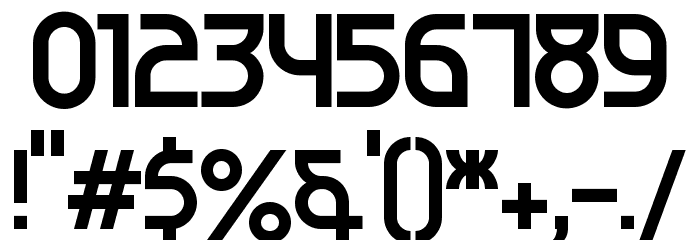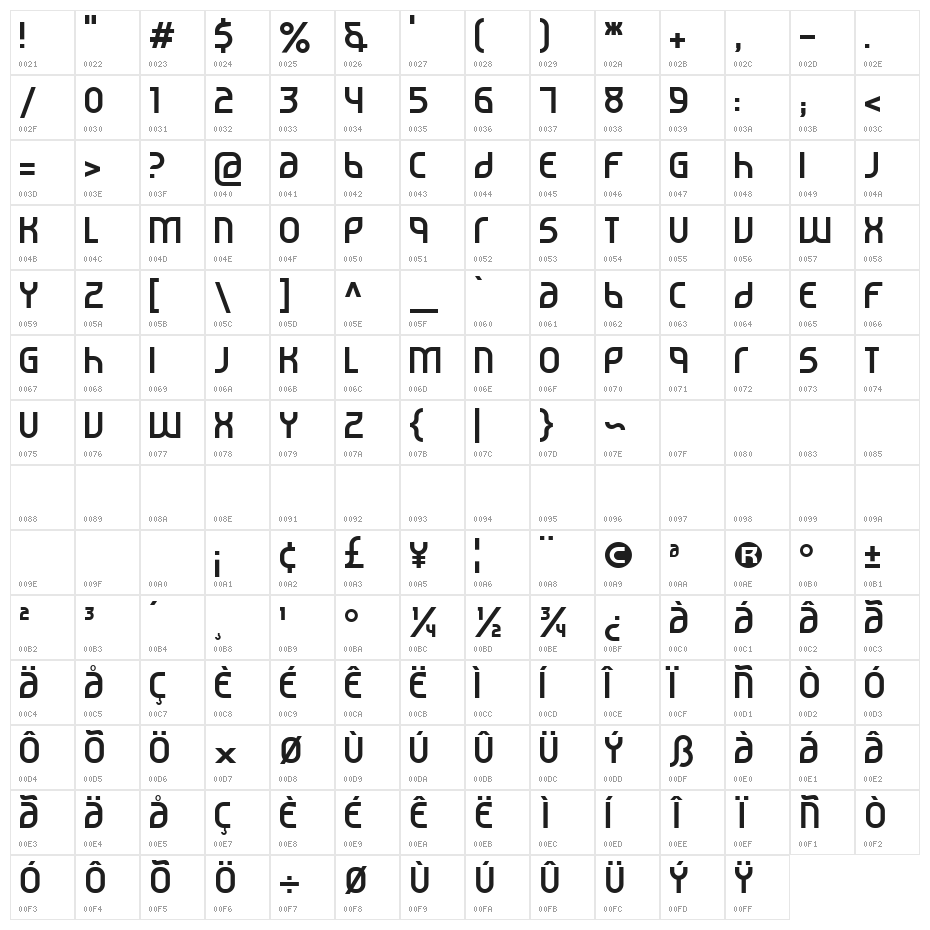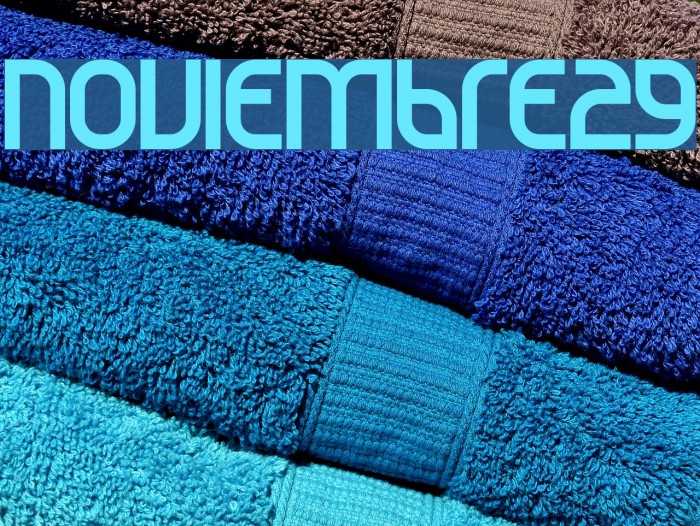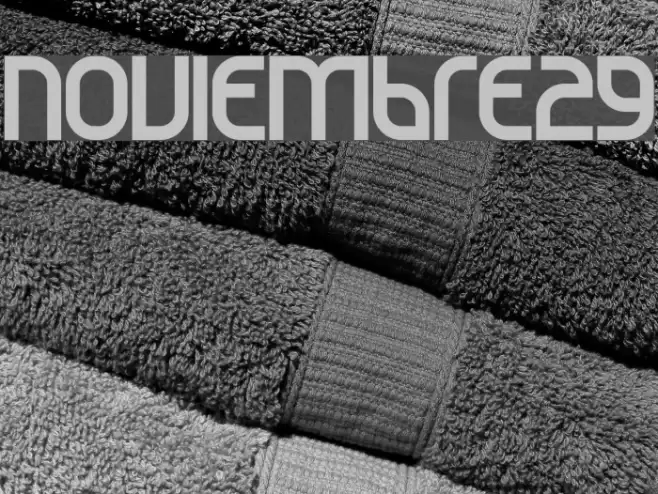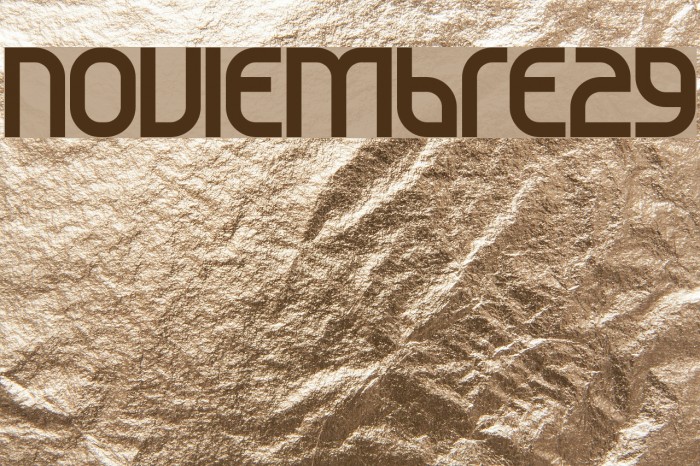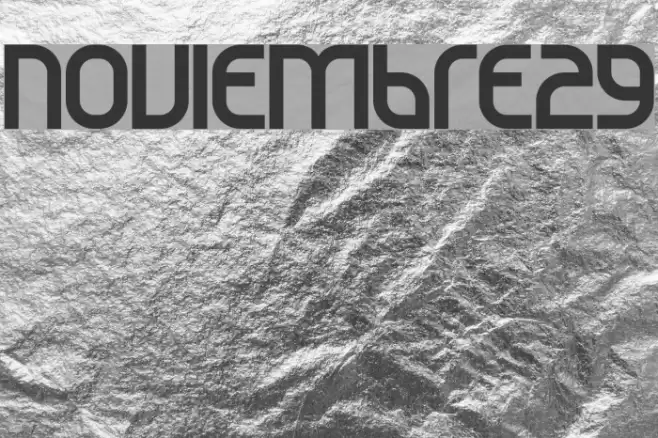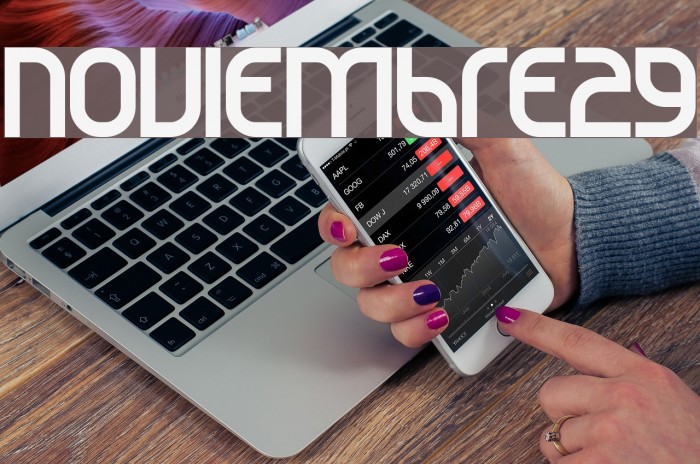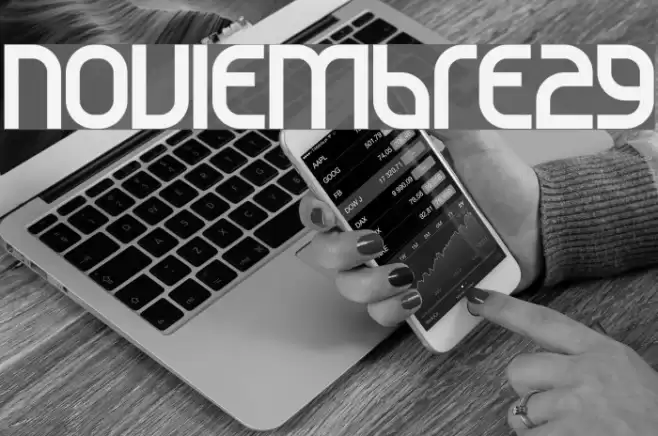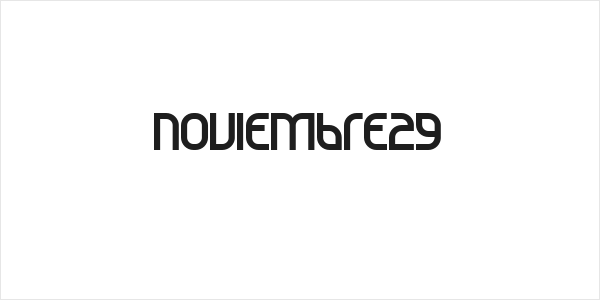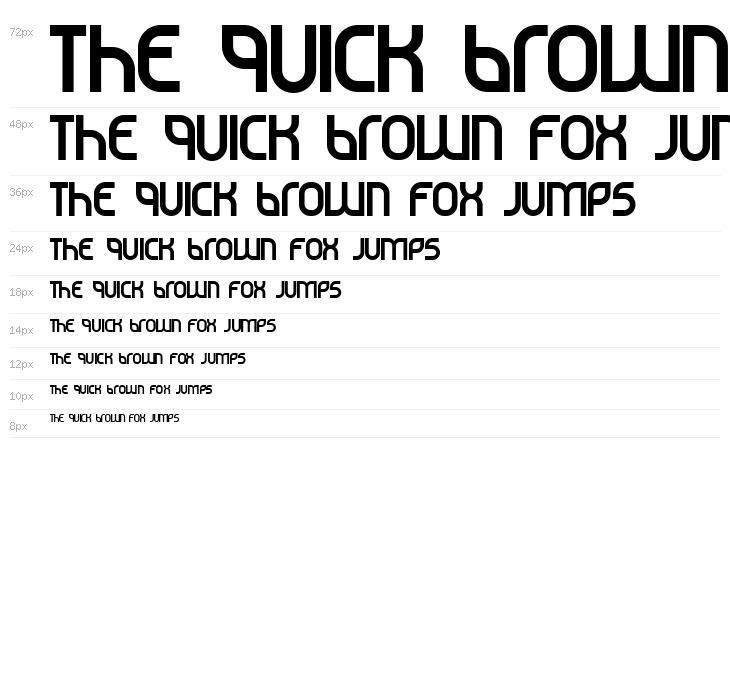
Noviembre29 Font
Noviembre29 Description
This font features a modern and geometric design with a strong emphasis on clean lines and bold shapes. The characters are uniformly structured, creating a cohesive and visually appealing appearance. The uppercase and lowercase letters maintain a consistent height, while the numerals and special characters integrate seamlessly with the overall style. The font's design is both futuristic and versatile, making it suitable for a variety of applications. Its boldness and clarity ensure readability, while the unique character shapes add a distinctive touch.
| Proposed Projects | Ideal for branding, advertising, posters, and digital media projects that require a modern and bold aesthetic. |